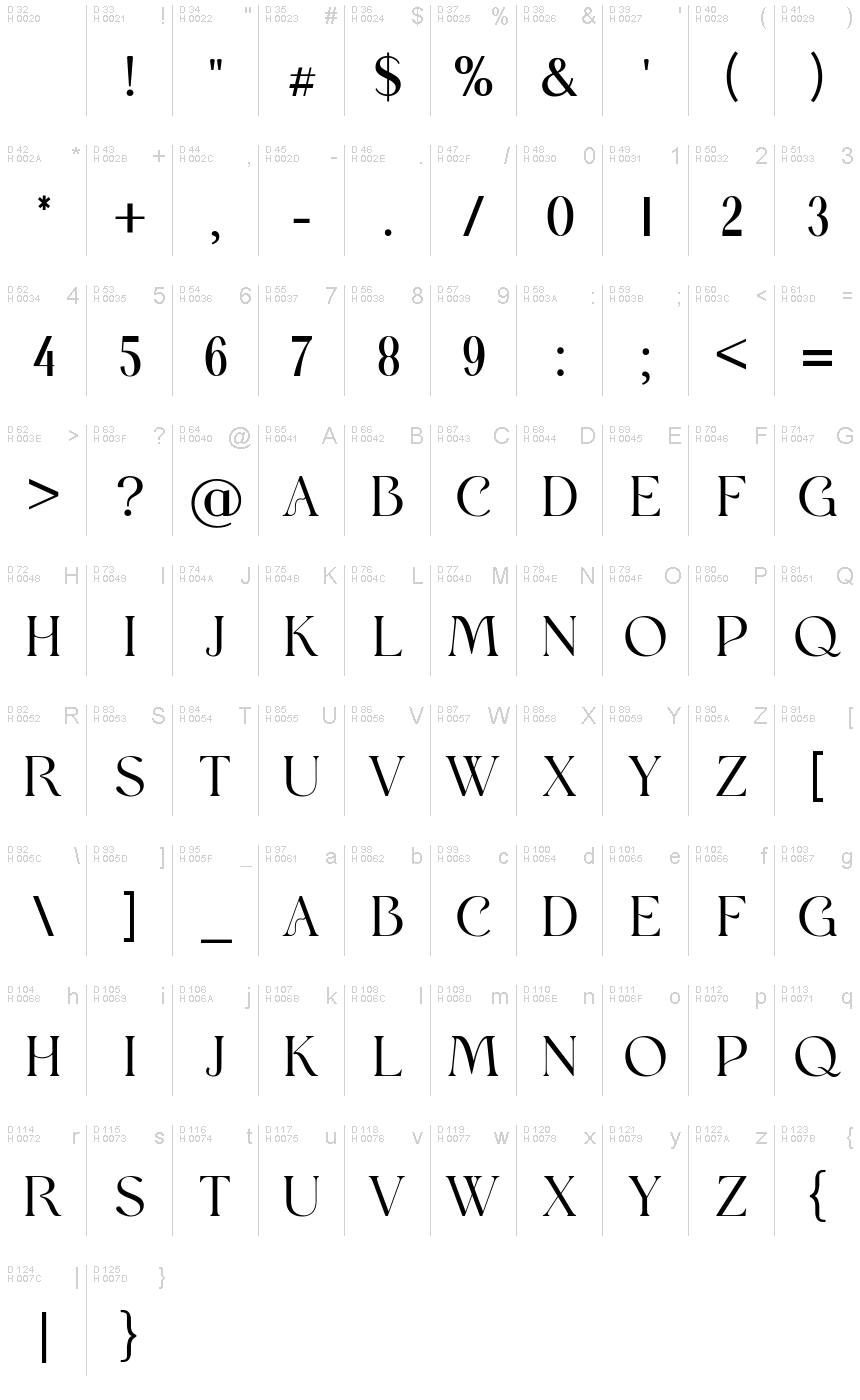
Polyamine
Polyamine, crafted by UI Creative, is a captivating serif font that exudes elegance and sophistication. Its distinct letterforms feature a harmonious blend of classic serif elements with modern twists, making it visually striking and memorable. The font's refined curves and balanced proportions lend an air of timeless beauty to any design.
Polyamine's versatility makes it perfect for a range of applications, from luxurious branding and editorial designs to sophisticated invitations and high-end packaging. Its unique character ensures that your message stands out with grace and prominence. Whether used for headlines or body text, Polyamine captures attention while maintaining readability, making it an invaluable asset in any designer's toolkit.